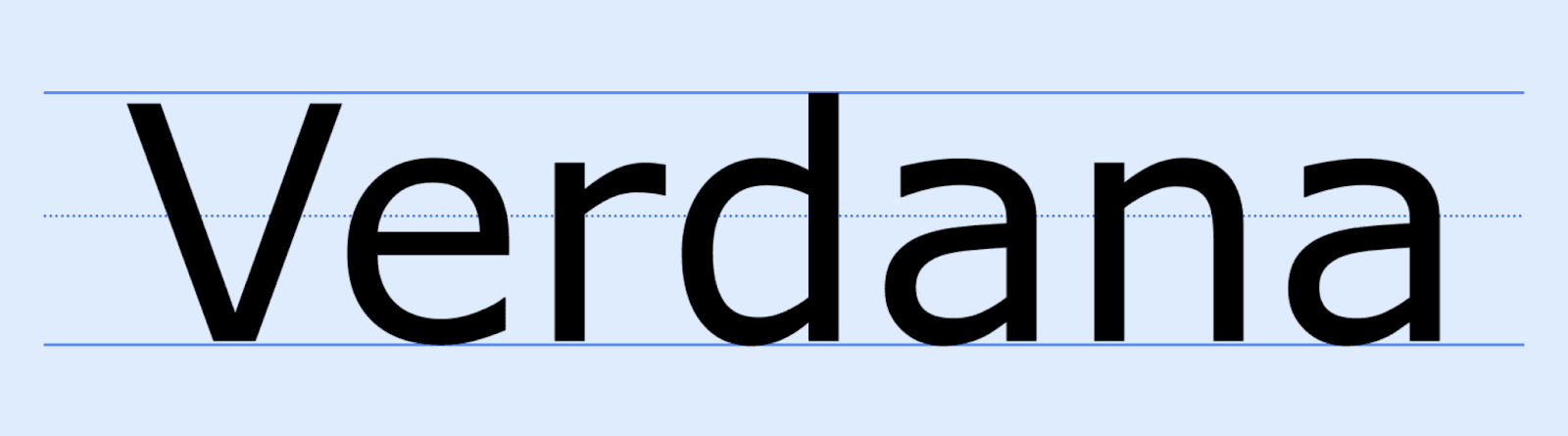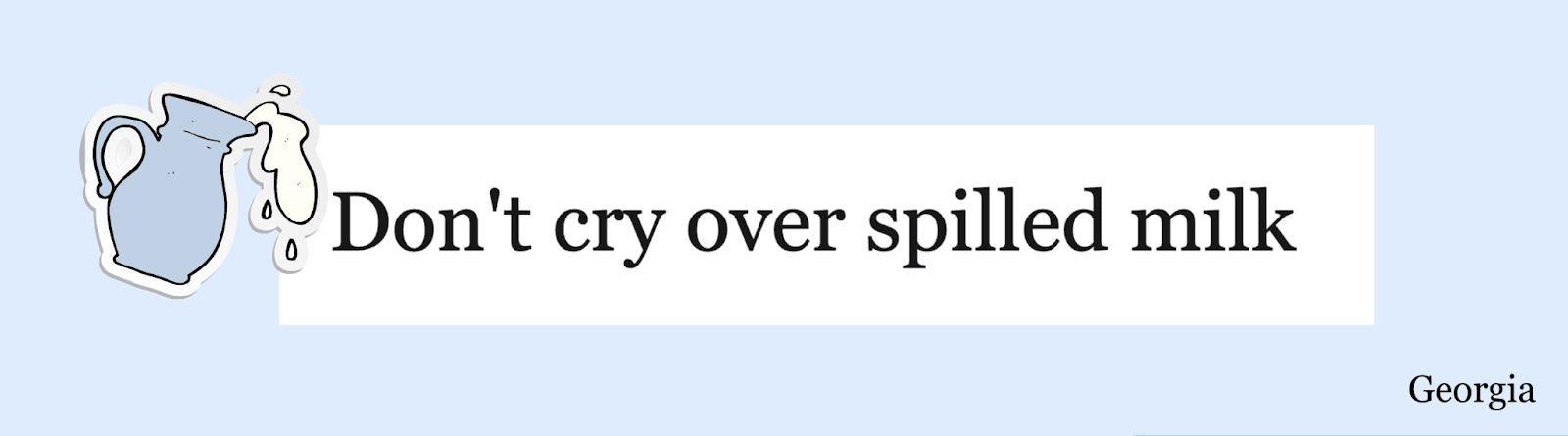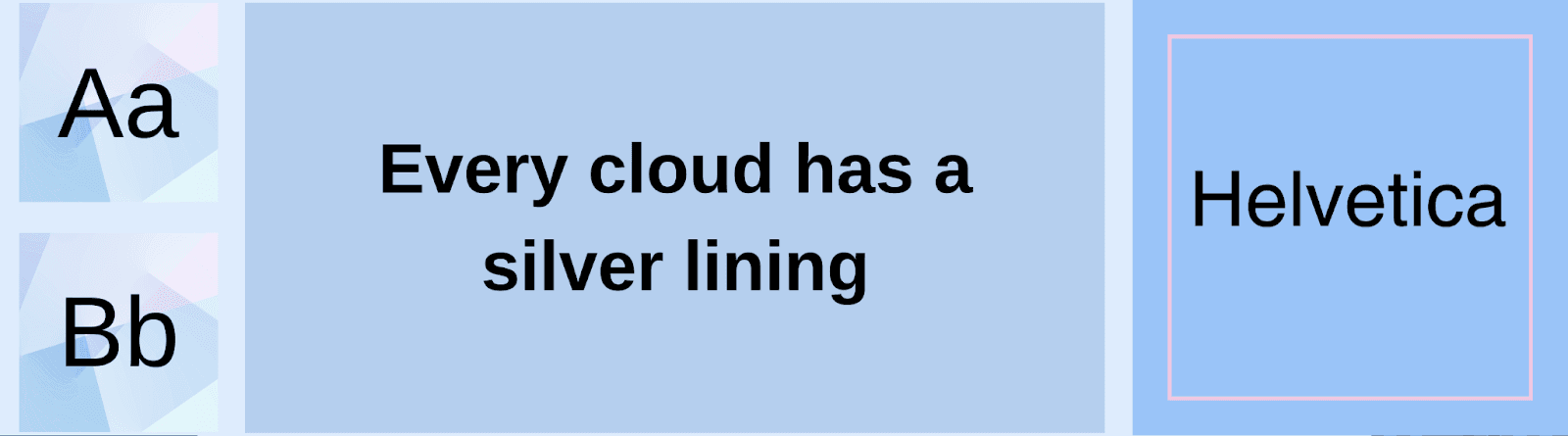
You haven’t experienced true agony if you’ve never read a hand-written doctor’s prescription. Your audience feels the same when reading email content written in a bad font style.
On average, people spend 9 seconds reading an email. The time increases when unreadable fonts are chosen. Longer reading times lead to frustrated prospects, which is something you don’t want.
This article discusses the 10 best fonts for email, so they not only get opened but read as well. Make sure to check the best practices for email fonts at the end!
Why Fonts Matter?
We’ve got a short (read: fun) exercise for you. Read the following text as quickly as you can.
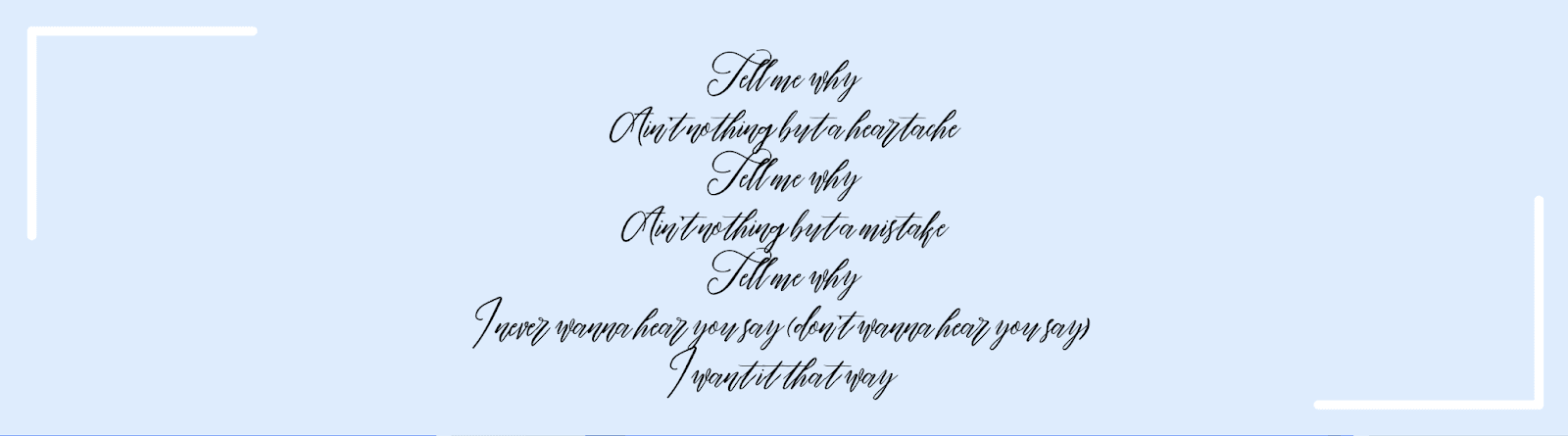
If you’re anything like us, you had a tough time reading the passage. If it were written in an easy-to-read font, you’d know instantly that the text is actually the lyrics to the well-famed Backstreet Boys song, "I Want It That Way."
Fonts are important since they affect the overall mood of an email. Just like colors, fonts have personality characteristics. If the email you’re sending is raising funds for an earthquake aftermath, choosing Comic Sans MS will give the impression that you’re not a credible entity.
Brands maintain their values and persona through the fonts they use. You’d never see Vogue sending emails with copy written in a font inspired by Graffiti.
4 Email Font Families
Email fonts are categorized into four font families based on similar designs. These font families are like parents, while the different fonts, like Arial and Times New Roman, can be considered their children.
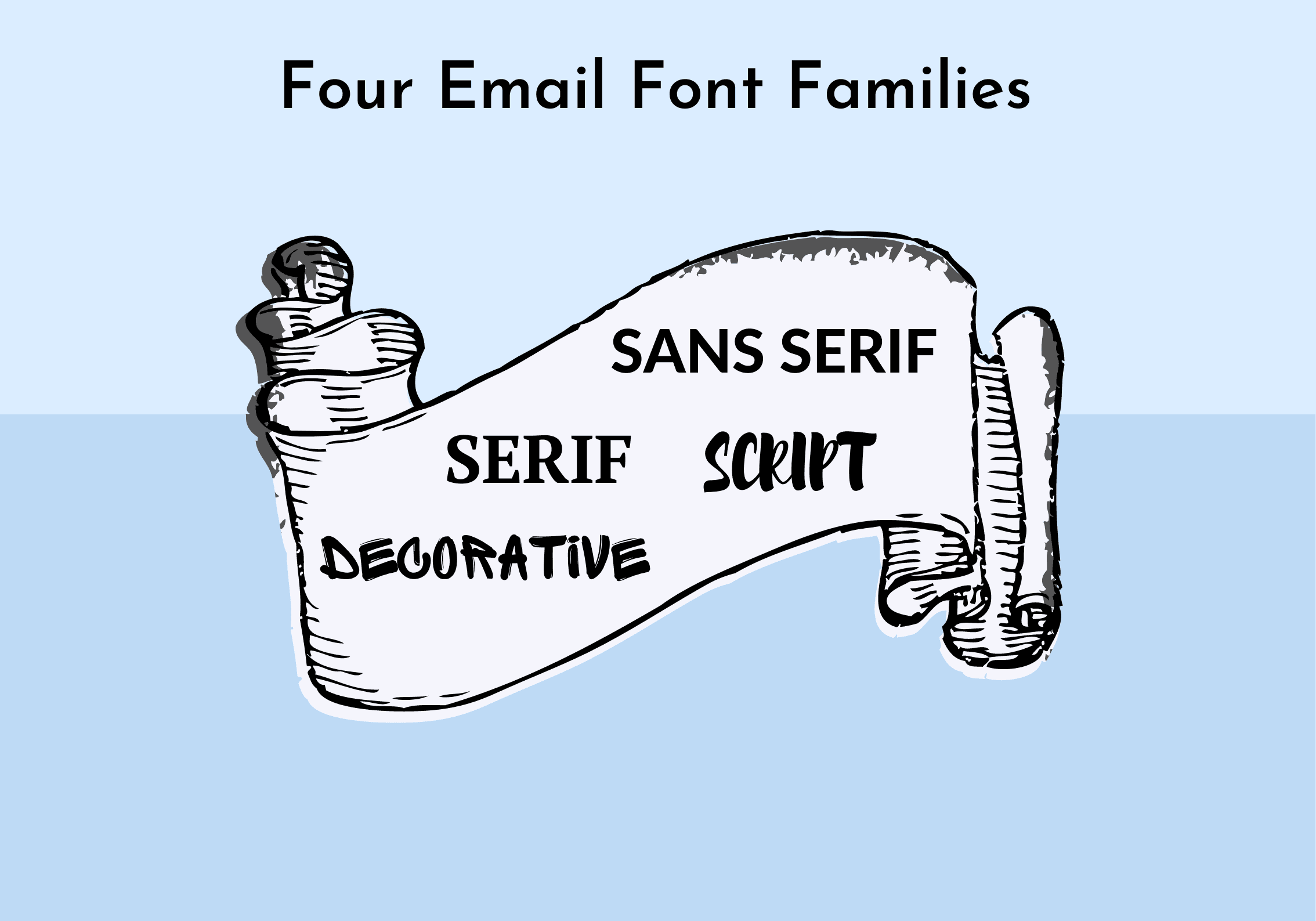
1. Serif
Serif fonts are easily identified by the decorative strokes at the end of each letter. They are considered traditional, formal, old-fashioned, and reliable. Such fonts are ideal for headings and any larger-sized text. The logo of Giorgio Armani has been written in a serif font.
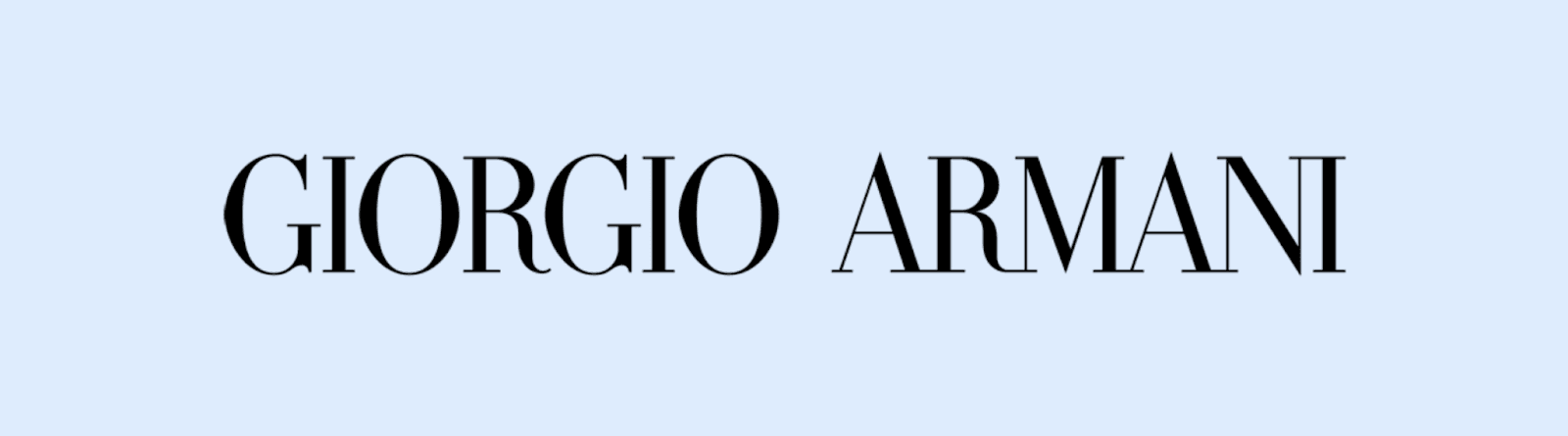
2. Sans Serif
As the name implies, fonts that don’t include decorative strokes are referred to as sans serif. Such fonts appear modern, clean, and humanistic. Many are of the view that sans serif fonts are most suitable for an email copy as compared to their counterparts. The Google logo is written in a sans serif font.
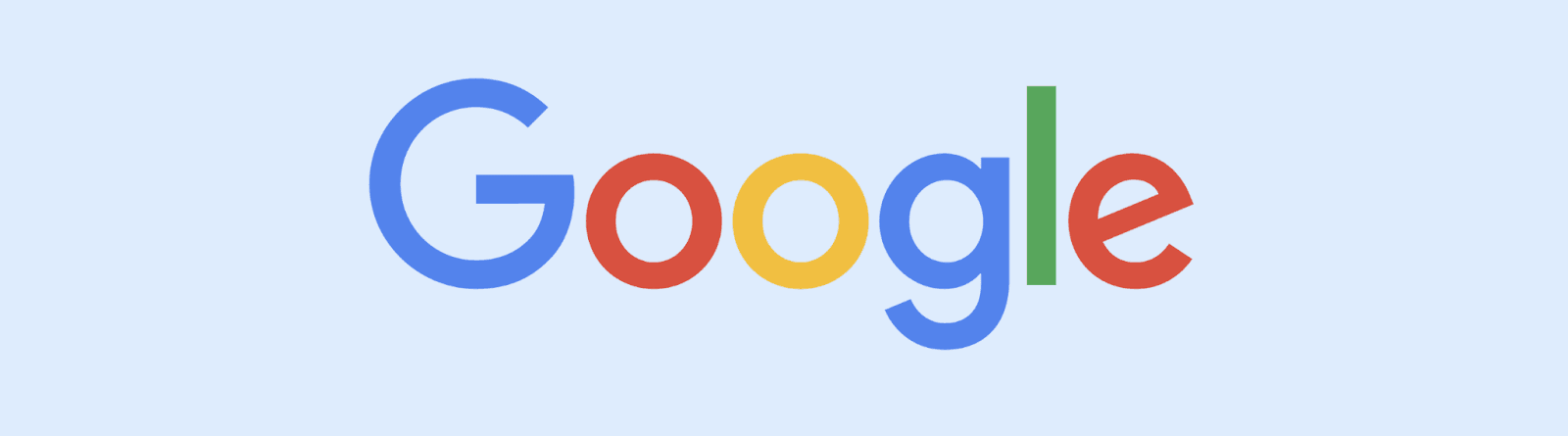
3. Script
Script fonts imitate the likes of cursive handwriting. These fonts have been inspired by calligraphy and 17th-century formal writing and denote characteristics of elegant and classic. While not ideal for email usage, such fonts are great for creative headings. Kellogg’s logo is a popular example of script fonts.
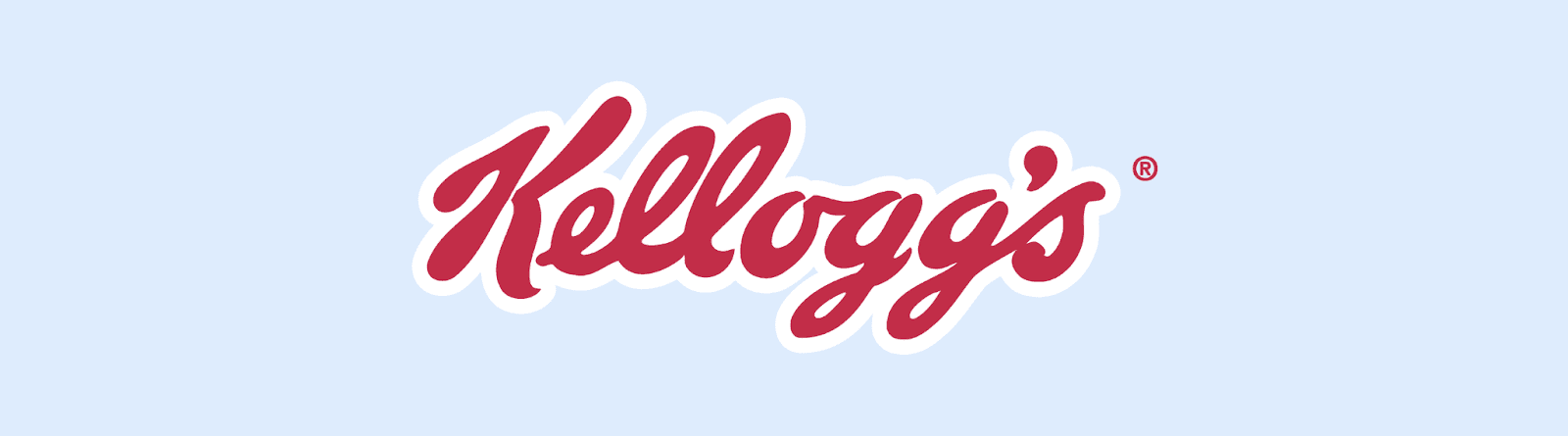
4. Decorative
Such a font style is artsier than it is practical. Decorative fonts are easily identified through their unique and unconventional design. While we suggest using this style sparingly, decorative fonts are considered creative, bold, and trendy. Fanta’s logo is a fun example of how decorative fonts look like.
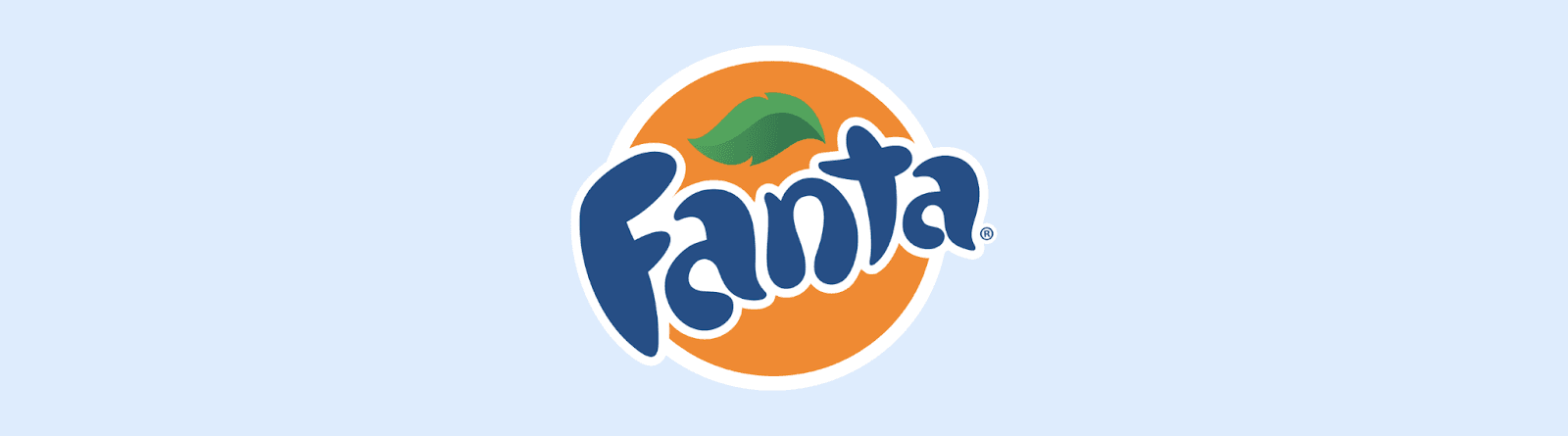
Email Font Categories
Now we know the four families that fonts belong to. But what are the font categories for emails? Emails are viewed on display screens, whether it be laptops or mobile devices. Some fonts are installed on the system via font management software, while others are hosted through a web server. Where a font is hosted directly impacts how it appears to the final reader.
System Fonts
Fonts that are installed on one’s computer are referred to as system fonts. The latter is referred to as web (or email) safe fonts as they appear the way intended and perform well on all email service providers. These fonts are like bad habits that never leave your sight, no matter how hard you try.
While critics may label them as boring, these fonts have been designed to be reliable. The email content will appear the same to all your subscribers and on all email providers used.
Web Fonts
Web fonts are not installed on the system but instead loaded from a web server. Since it’s not system-based, the fonts need to be supported by a person’s web browser and email service provider.
Many are wary of using such fonts since there’s no guarantee that the content will appear as intended. The solution to this? Fallback fonts. These fonts are pre-installed in one’s system and are hence email safe. If a person uses an old browser or the browser is not compatible with a web font, the email content will be displayed in the fallback font. Arial (sans serif) and Times New Roman (serif) are the most popular web-safe fonts.
10 Best Fonts for Email Design
Which fonts look good, are readable, and get your message across easily? And which professional fonts to use in your emails?
The following are the best fonts for email design that have been tried and tested to work well for emails.
1. Arial
Arial is a sans serif font that is widely used both in print and digital media. The font is known for being versatile, modest, and simple. Since it is widely used, critics believe that Arial should be avoided in hopes of standing out.
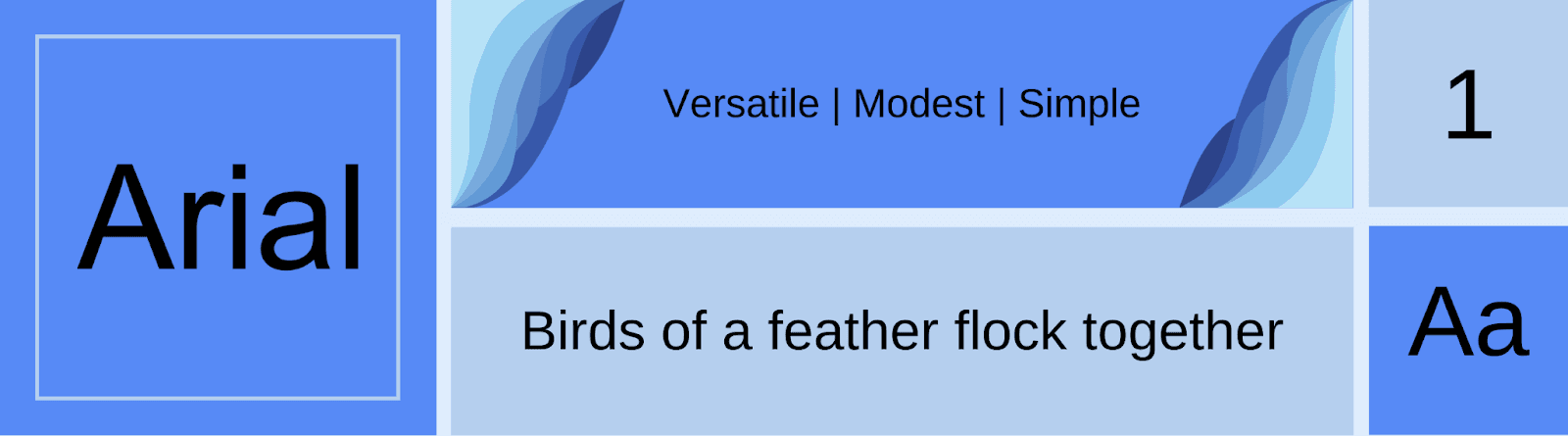
Aptos is a sans serif font made of varying geometric shapes. It is bold, well-defined, directive, and constrained, giving a sleek look to your emails.
What is the best font size for email?
We recommend sticking between 22-28 pixels for headings and 12-14 pixels for the body for desktop and mobile screens.